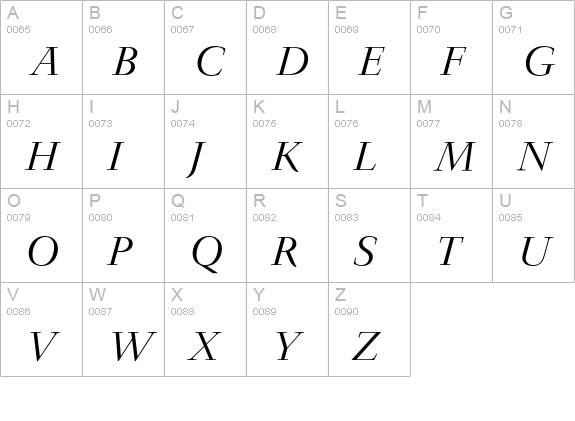
Jaeger-Antiqua Light Italic Font Details
Jaeger-Antiqua Light Italic is a refined, elegant, italic variant in the Jaeger typeface family \xE2\x80\x94 well suited to elegant body text, refined sub-headings, and luxury branding.
Jaeger-Antiqua Light Italic font is a masterful blend of elegance and sophistication, perfectly suited for projects that require a touch of timeless charm. With its delicate strokes and graceful curves, this font exudes a sense of refinement and class. The flowing italicized form of Jaeger-Antiqua Light Italic adds a touch of flair to any design, capturing attention and conveying a sense of effortless style. Its slender, elongated letterforms create a harmonious balance between legibility and artistic expression, making it an excellent choice for both headings and body text. The versatility of Jaeger-Antiqua Light Italic font is further enhanced by its extensive character set, which includes a wide range of special characters, ligatures, and alternate glyphs. This allows designers to explore different typographic possibilities and create truly unique and engaging layouts. One of the most remarkable aspects of Jaeger-Antiqua Light Italic font is that it is available for free download at FontsMarket.com. This means that designers, professionals, and enthusiasts alike can access this exceptional font without any cost. Its accessibility ensures that everyone can enjoy the beauty and functionality of Jaeger-Antiqua Light Italic, regardless of their budget. So whether you are designing a wedding invitation, a magazine layout, or a branding project, Jaeger-Antiqua Light Italic font is a versatile and captivating choice that will elevate your work to new heights. Download it for free at FontsMarket.com and discover the endless possibilities that this exquisite font has to offer.